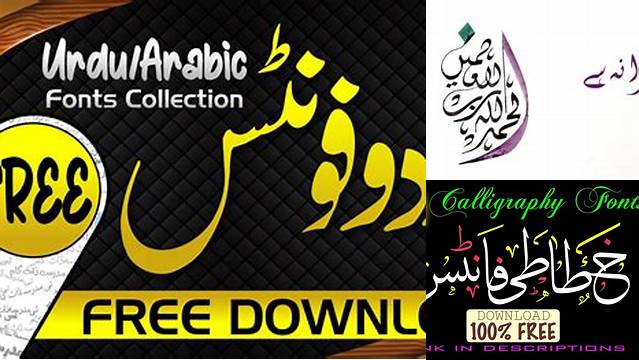
Best Urdu Calligraphy Fonts: Free Download
Hey guys! Are you looking to add a touch of elegance and artistry to your projects? Then you've come to the right place! Urdu calligraphy fonts are a fantastic way to do just that. These fonts bring the beauty and flow of Urdu script to your designs, making them stand out with their unique charm. In this article, we're diving deep into the world of the best Urdu calligraphy fonts, especially those you can download for free. Whether you're a graphic designer, a student, or just someone who loves beautiful typography, this guide is for you. We'll explore a variety of styles, from traditional to modern, and help you find the perfect font to elevate your work. So, let’s jump in and discover the amazing world of Urdu calligraphy fonts!
Exploring the Beauty of Urdu Calligraphy
The Rich History of Urdu Calligraphy
Urdu calligraphy isn't just about pretty letters; it's a journey through centuries of artistic expression. The history of Urdu calligraphy is intertwined with the cultural and literary heritage of the Urdu language itself. This beautiful art form has evolved over centuries, influenced by Persian and Arabic scripts, and has become an integral part of Islamic art and culture. From intricate inscriptions on historical monuments to elegant book covers and manuscripts, Urdu calligraphy has adorned countless masterpieces. Understanding its history allows us to appreciate the depth and significance of each stroke and curve in these fonts. The evolution includes various styles like Naskh, Nastaliq, and Thuluth, each carrying its own unique character and charm. You'll see how these historical styles influence modern fonts, blending tradition with contemporary design sensibilities. The impact of calligraphy extends beyond mere aesthetics; it's a powerful form of communication and artistic expression. So, when you use an Urdu calligraphy font, you're not just choosing a typeface; you're connecting with a rich artistic legacy.
Understanding Different Styles of Urdu Calligraphy Fonts
The world of Urdu calligraphy fonts is incredibly diverse, with each style offering a unique flavor and aesthetic. From the classic elegance of Nastaliq to the bold presence of Kufic, understanding these styles is key to choosing the right font for your project. Let's break down some of the most popular styles. Nastaliq, often considered the most refined and elegant style, is known for its flowing curves and balanced letterforms, making it perfect for literary works and formal designs. Then there's Naskh, a more straightforward and legible style, often used for printed text and digital media. Thuluth, characterized by its large, sweeping strokes and decorative elements, is frequently seen in architectural inscriptions and religious texts. Diwani is another distinctive style, known for its ornate and complex letterforms, adding a touch of luxury and sophistication to any design. Understanding these different styles of Urdu calligraphy fonts helps you choose the perfect one to match the tone and purpose of your work. Whether you need something formal and traditional or something modern and expressive, there's a style out there for you. The key is to explore and find what resonates with your vision, guys!
Top Free Urdu Calligraphy Fonts for Download
Best Nastaliq Style Urdu Fonts for Free
If you're looking for elegance and fluidity, Nastaliq style Urdu fonts are your go-to. This style is characterized by its flowing curves and balanced letterforms, making it a classic choice for literary works and formal designs. The best Nastaliq style Urdu fonts capture the essence of traditional calligraphy while being versatile enough for modern applications. Think of fonts that mimic the strokes of a skilled calligrapher, each character connecting seamlessly to the next. These fonts often have a graceful, almost handwritten feel, which adds a touch of sophistication to your projects. Many free Nastaliq fonts are available, offering a range of weights and styles, from light and delicate to bold and impactful. When selecting a Nastaliq font, consider the readability and how well it fits with your overall design. A beautifully crafted Nastaliq font can elevate your text, whether it's a book cover, a wedding invitation, or a website header. Using these fonts is like adding a touch of timeless beauty to your work. You'll find that the right Nastaliq font can transform your text into a work of art. So, go ahead and explore the world of free Nastaliq fonts and discover the perfect one for your needs!
Free Naskh Style Urdu Fonts for Modern Designs
For modern and legible designs, Naskh style Urdu fonts are an excellent choice. This style is known for its clarity and simplicity, making it perfect for both print and digital media. Unlike the flowing curves of Nastaliq, Naskh features more straightforward and distinct letterforms, ensuring readability even at smaller sizes. Many designers prefer free Naskh style Urdu fonts for their versatility and ease of use in various applications, from body text in books and articles to user interfaces and web content. The clean lines and balanced proportions of Naskh make it a reliable option for projects where clarity is paramount. When choosing a Naskh font, consider the weight and spacing to ensure it complements your overall design aesthetic. Some Naskh fonts also incorporate modern stylistic elements, blending traditional calligraphy with contemporary design trends. Using these fonts can give your project a professional and polished look, while still honoring the rich heritage of Urdu calligraphy. So, if you're working on a project that requires a blend of tradition and modernity, Naskh style fonts are definitely worth exploring, guys!
Exploring Free Thuluth Urdu Fonts for Decorative Purposes
If you're aiming for grandeur and ornamentation, Thuluth Urdu fonts are the way to go. This style is characterized by its large, sweeping strokes and decorative elements, making it ideal for headings, titles, and other display purposes. Free Thuluth Urdu fonts are often used in architectural inscriptions, religious texts, and formal invitations, where a touch of elegance and sophistication is desired. Thuluth fonts typically have a bold and commanding presence, drawing the eye and making a statement. When selecting a Thuluth font, consider the overall complexity and how well it integrates with your design. Some Thuluth fonts feature intricate embellishments, while others offer a more simplified, yet still decorative, look. Using these fonts can add a touch of regal charm to your projects, making them stand out with their unique flair. Thuluth fonts are perfect for situations where you want to convey a sense of importance and tradition. So, if you're looking to create a design that commands attention and exudes elegance, explore the world of Thuluth fonts and let their majestic strokes enhance your work.
Diwani Style Urdu Fonts: Free Options for a Unique Touch
For a truly unique and ornate touch, Diwani style Urdu fonts are an excellent choice. This style is known for its complex and flowing letterforms, often featuring dramatic curves and overlapping characters. Free Diwani style Urdu fonts are perfect for adding a sense of luxury and sophistication to your designs. They are frequently used in certificates, invitations, and other formal documents where a distinctive and elegant look is desired. Diwani fonts have a calligraphic flair that sets them apart from other styles, making them ideal for projects that need a special touch. When selecting a Diwani font, consider the readability and the overall complexity of the design. While Diwani fonts are beautiful, they can sometimes be challenging to read at smaller sizes, so they are best used for headings and titles. Using these fonts can give your project a refined and artistic feel, showcasing the beauty of Urdu calligraphy in a unique way. If you're looking to make a statement with your typography, Diwani fonts are a fantastic option, guys! They bring a level of artistry and elegance that few other styles can match.
How to Choose the Right Urdu Calligraphy Font
Considering the Project's Purpose and Tone
Choosing the right Urdu calligraphy font is crucial for conveying the intended message and aesthetic of your project. One of the most important factors to consider is the project's purpose and tone. Is it a formal invitation that requires elegance and sophistication? Or a modern website that needs clarity and readability? Considering the project's purpose and tone will help you narrow down your font choices. For formal projects, styles like Nastaliq or Diwani might be ideal, while Naskh is often a better fit for modern designs and body text. Think about the emotions and impressions you want to evoke. Do you want to create a sense of tradition, luxury, or simplicity? Each calligraphy style has its own unique character, so aligning it with your project's goals is essential. A mismatch between the font and the project's tone can undermine your design, so take the time to evaluate your options carefully. By understanding your project's needs, you can select a font that not only looks beautiful but also enhances your message effectively. So, always start by defining the purpose and tone of your project before diving into font selection.
Readability and Legibility in Urdu Calligraphy Fonts
While Urdu calligraphy fonts are beautiful, readability and legibility are essential, especially when dealing with body text or smaller sizes. A font that looks stunning but is difficult to read can hinder communication and frustrate your audience. Readability and legibility in Urdu calligraphy fonts depend on several factors, including the font style, letter spacing, and size. Naskh fonts, for instance, are generally more legible than more ornate styles like Diwani, making them a better choice for lengthy text. When selecting a font, test it out at different sizes to ensure it remains clear and easy to read. Pay attention to the spacing between letters and words, as this can significantly impact legibility. Overly condensed or widely spaced text can be challenging to read. Also, consider the background color and contrast. A font that looks great on a white background might not be as legible on a darker surface. By prioritizing readability and legibility, you can ensure that your message is effectively communicated, without sacrificing the beauty of Urdu calligraphy. So, always balance aesthetics with practicality when choosing a font for your project.